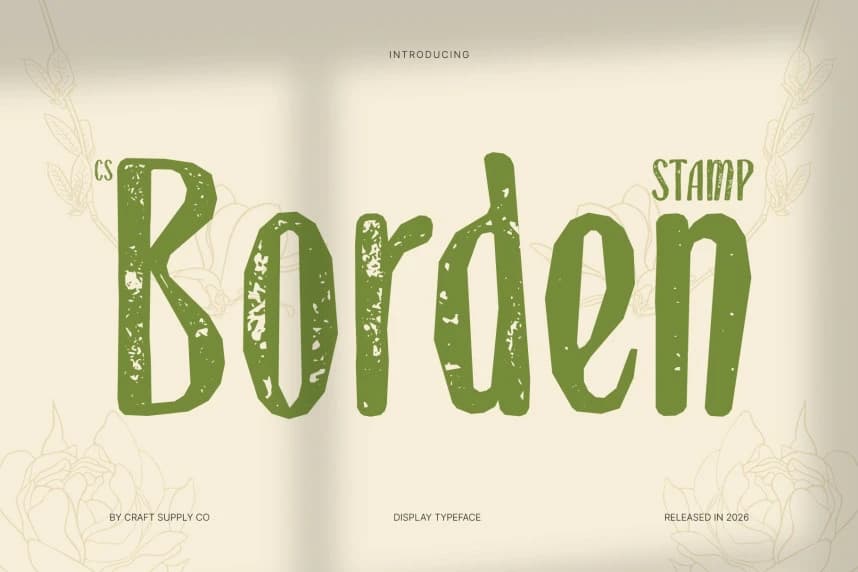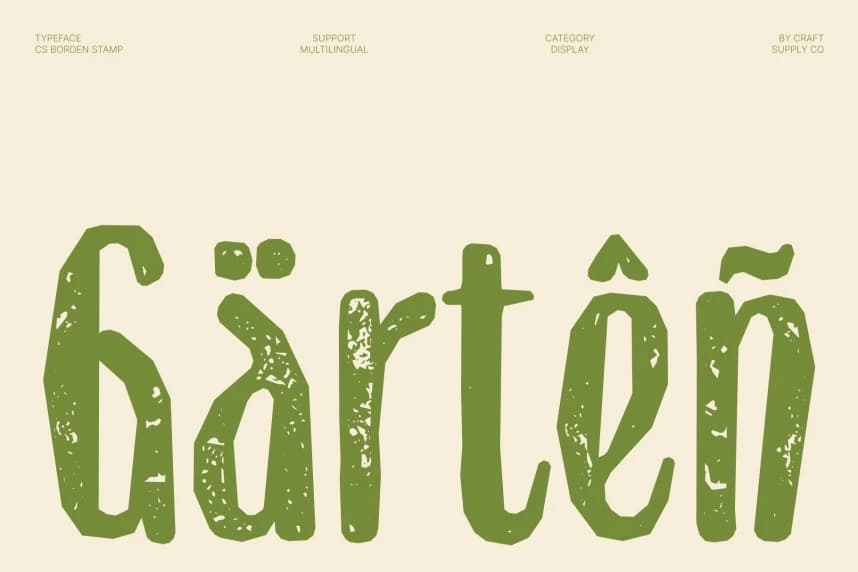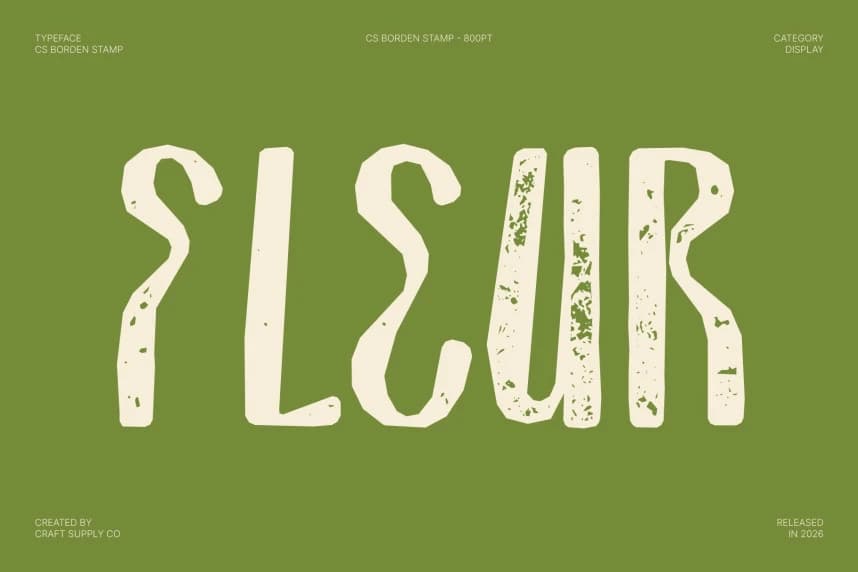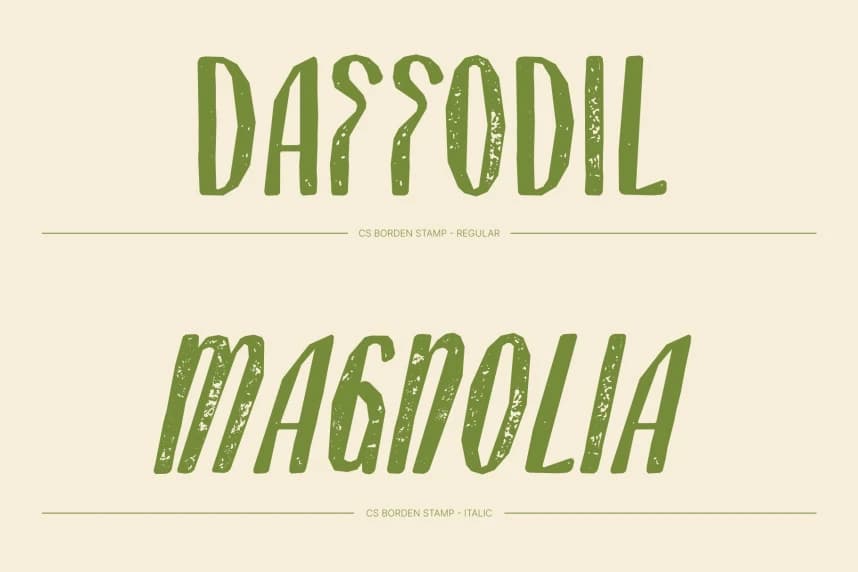
CS Borden Stamp Font – Elegant Sophistication with Textured Prestige Modern Display Font with Refined, Stamped Elegance. This reimagines the sleek sophistication of the original with a subtle stamped texture that adds depth and character.